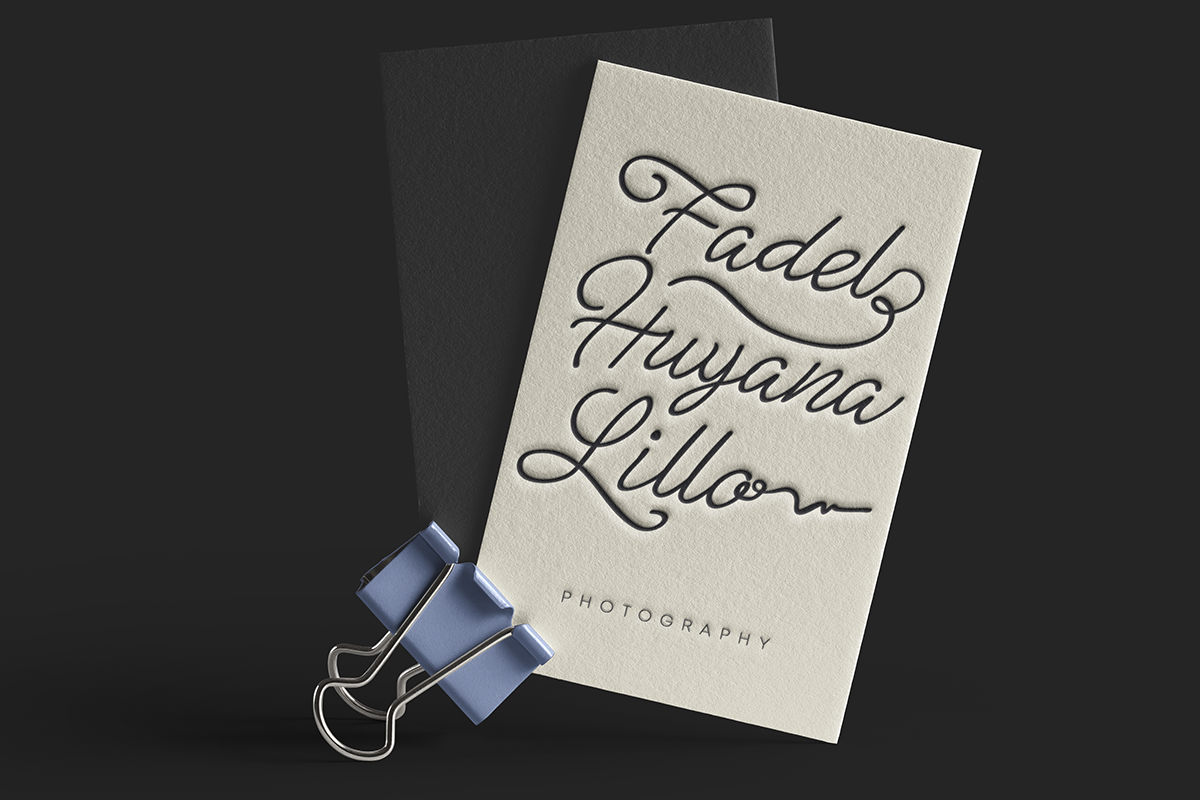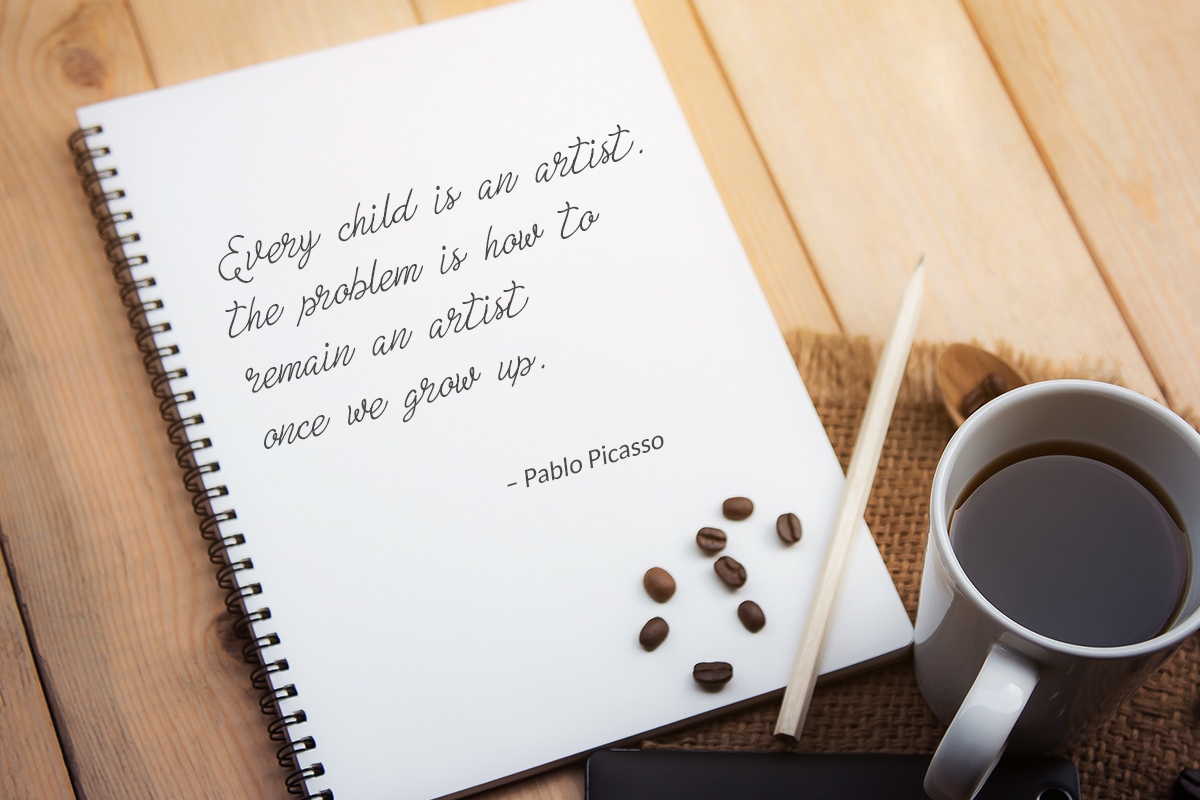
Alluring Briony is a lovely and delicate script font that exudes elegance and class. This font was particularly crafted for those who need a beautiful and refreshing look to their designs.
Alluring Briony is a Stylish monoline script font, with a natural & stylish flow. Perfect for many different project such as logos & branding, invitation, stationery, wedding designs, social media posts, advertisements, product packaging, product designs, label, photography, watermark, special events or anything.